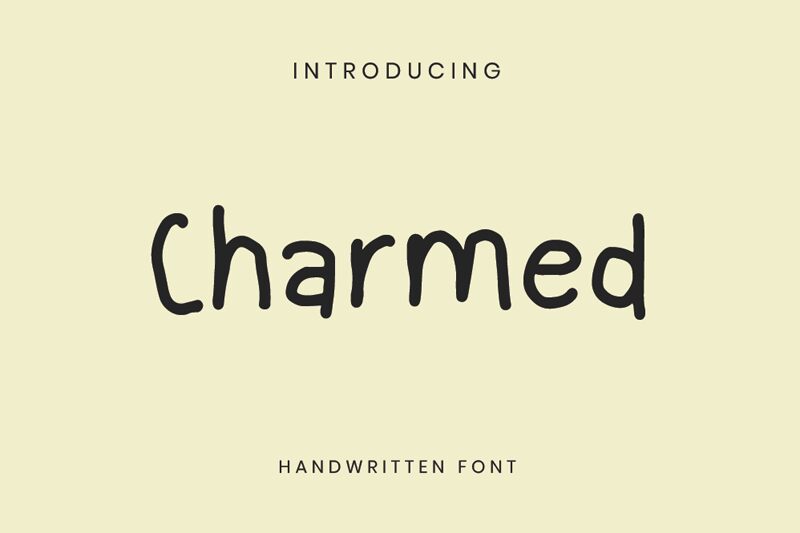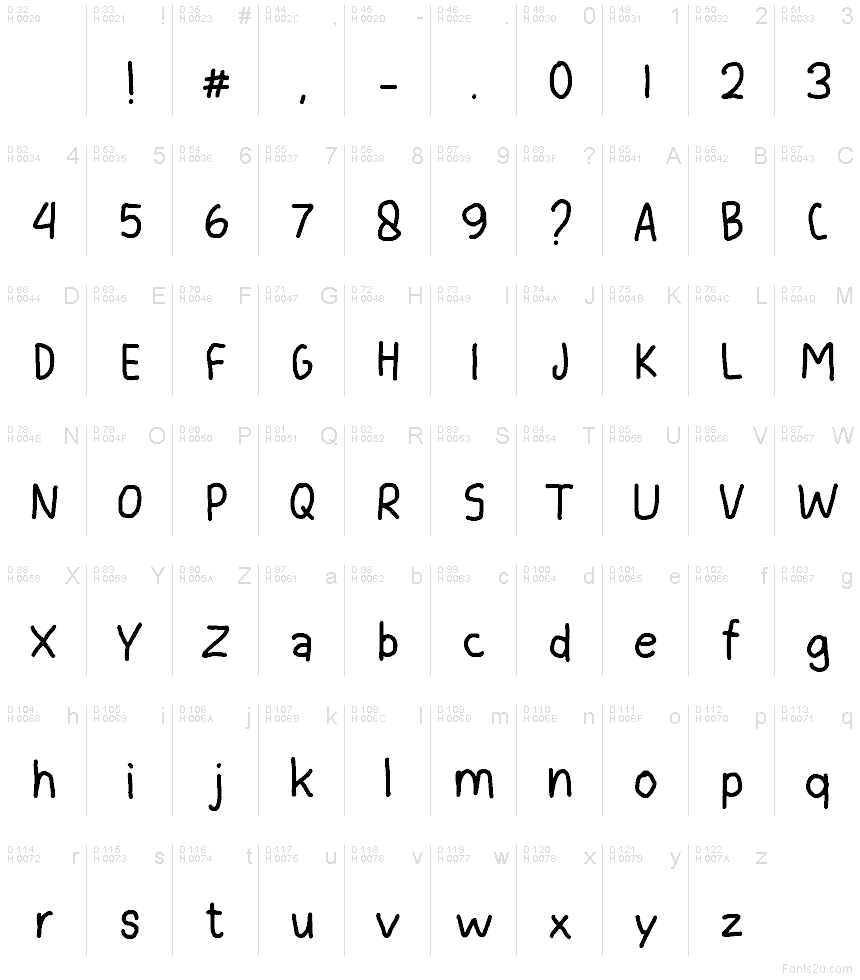
Charmed HF Regular
Charmed HF font by Just Handwritten Font is a free handwritten font that captures the look of a neat marker note—casual, rounded, and easy to read. The strokes feel slightly wobbly and inky, giving designs a human touch without slipping into messiness, so you get warmth and clarity at the same time. Letters sit close and friendly, making words feel like they’re written in one smooth thought.
Using Charmed HF, this free font shines on kids’ branding, classroom worksheets, quote graphics, bullet journals, planners, and playful packaging. It works beautifully for social posts where you want personality that still scans instantly. Try pairing Charmed HF with a clean geometric sans serif for body text, and keep this handwritten typeface a size or two larger to show off its charming texture.